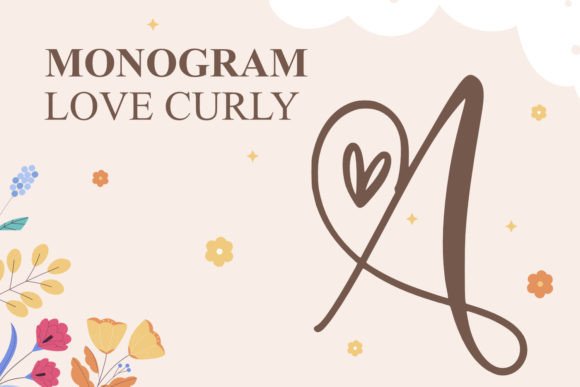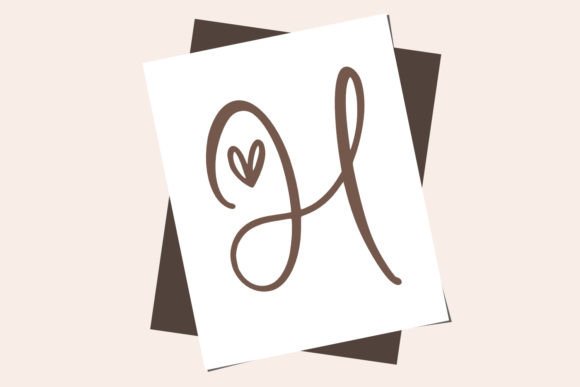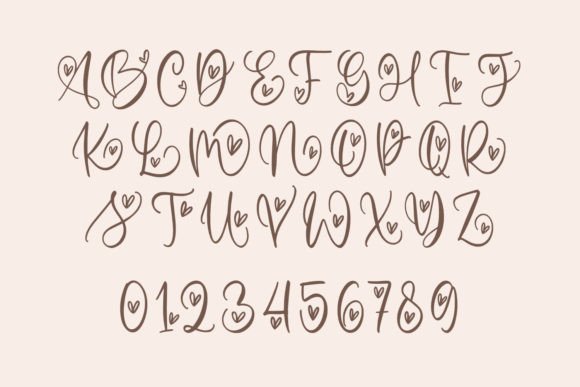
Monogram Love Curly Font
About the Monogram Love Curly Font
Meet Monogram Love Curly Font, a stunning font that brings a touch of elegance and professionalism to any design. Monogram Love Curly is a beautiful decorative font. This font will add a feeling of love to any craft idea, be it wedding crafts, invitations, greeting cards, Valentines, logos, and others.
Monogram Love Curly’s decorative style is ideal for headlines, short text blocks on invitations or greeting cards, and logos requiring a touch of romantic flair. It excels in projects emphasizing elegance and handcrafted aesthetics, such as wedding stationery or boutique branding. However, its highly stylized forms make it unsuitable for body text or UI elements; the intricate curls would hinder readability in extended passages.
For effective pairings, consider complementing its decorative nature with a clean sans-serif like Lato for body text or a classic serif like Garamond for a more traditional feel. A geometric sans-serif such as Futura could provide a striking contrast, creating visual interest. Avoid pairing it with other highly decorative fonts, which could lead to visual clutter.
The font’s overall personality is elegant and romantic, conveying a sense of refined charm and warmth. It’s best suited for brands and projects aiming for a sophisticated yet approachable feel.